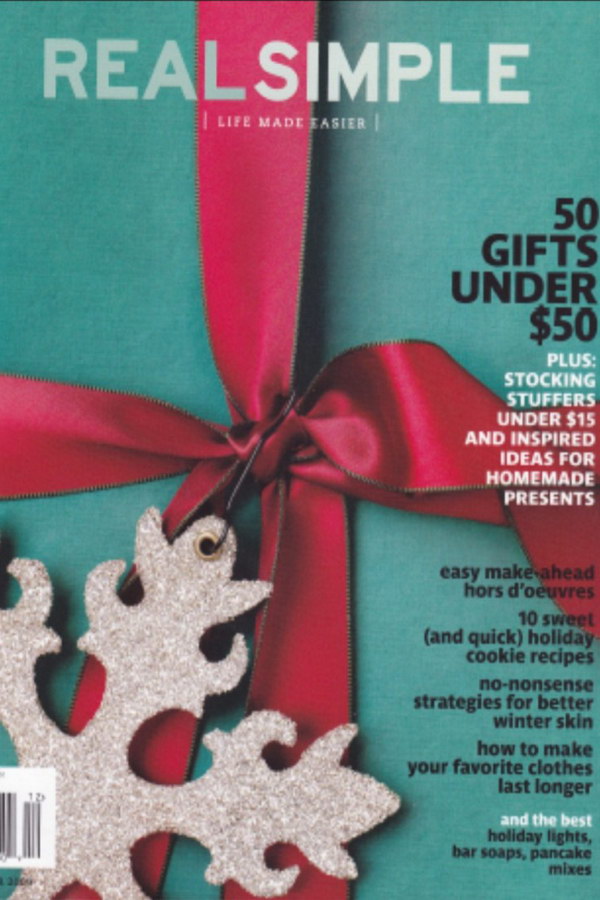
Real Simple Font
BookReal Simple is a monthly women's lifestyle magazine that offers practical solutions for everyday living, featuring articles on home organization, recipes, beauty, fashion, and health.
The Real Simple nameplate font is likely Interstate Bold, a neo-grotesque sans-serif typeface created by Tobias Frere-Jones. It draws inspiration from the U.S. Federal Highway Administration's signage alphabets. For additional information about the typeface, click here.